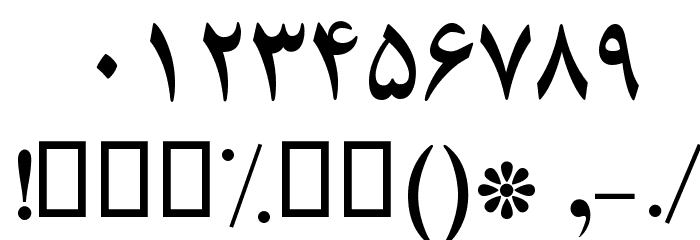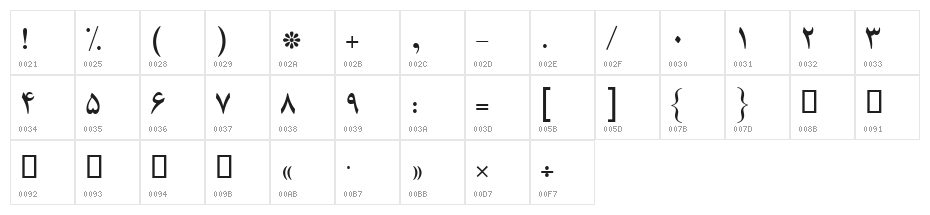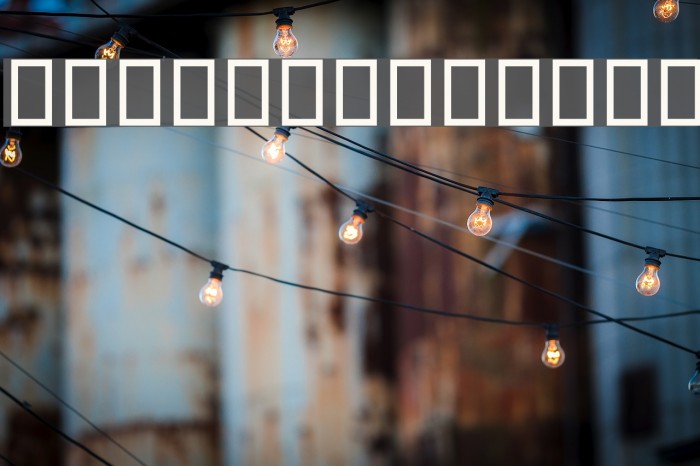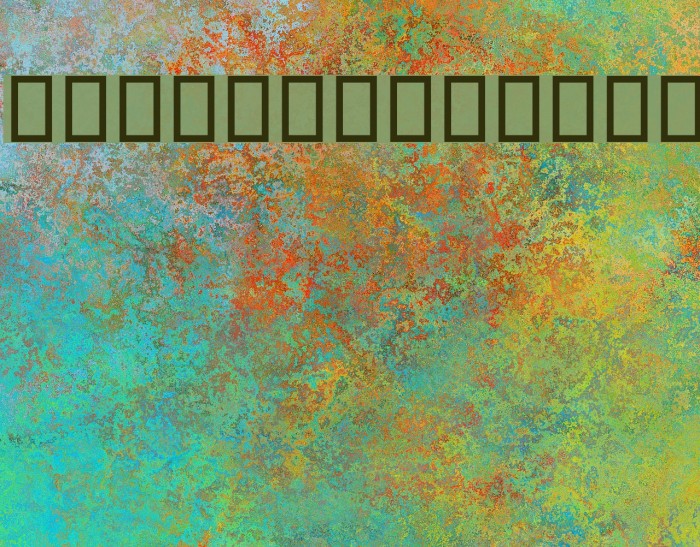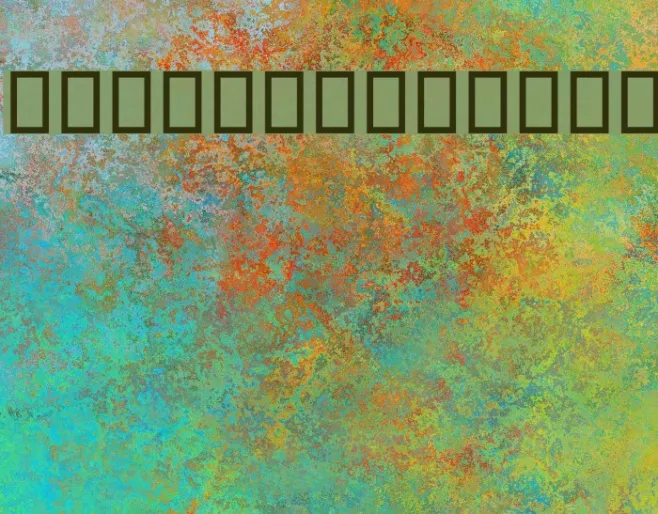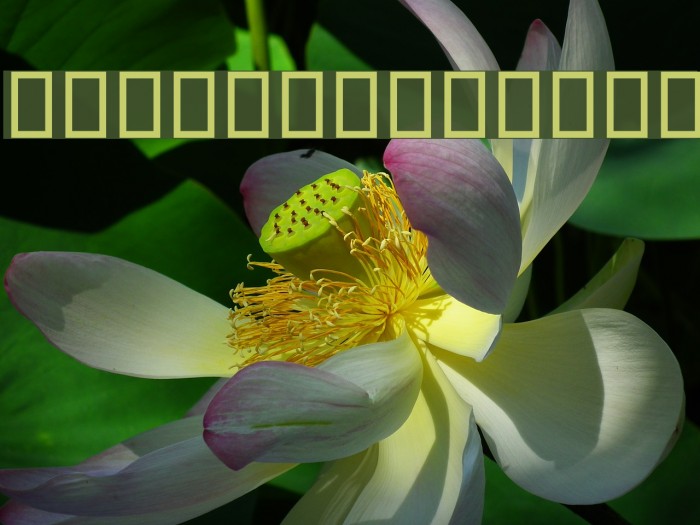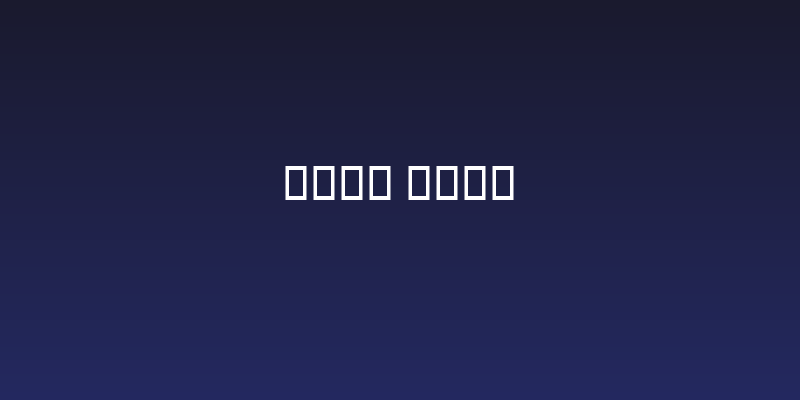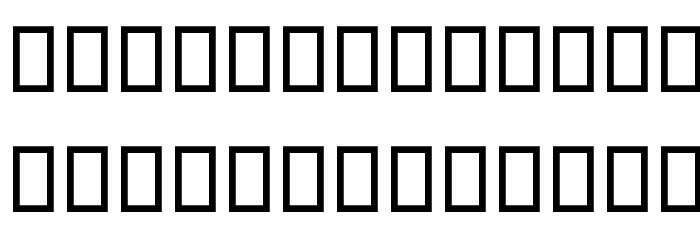
Yaas Bold Font
Yaas Bold Description
This font features a bold and dynamic style with a strong presence. The characters are designed with a high contrast between thick and thin strokes, giving it a dramatic and eye-catching appearance. The curves are smooth and elegant, adding a touch of sophistication. The numbers are uniquely styled, with a slightly cursive flair that sets them apart. Special characters are included, maintaining the overall aesthetic. This font is ideal for making a statement in any design project.
| Proposed Projects | Perfect for branding, headlines, posters, and any design needing a bold statement. |